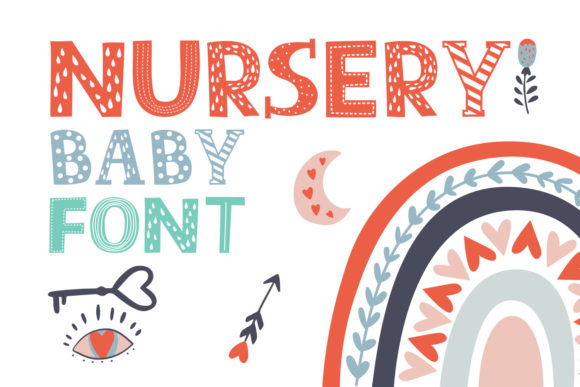
Introducing Nursery Baby Font, the perfect font for kids that will add a touch of whimsy and charm to all your creative projects! Created by OWPictures, this lovely display font is sure to capture the hearts of both children and adults alike.
With its cheerful and playful look, Nursery Baby Font brings a sense of joy and excitement to any design. Whether you're crafting invitations for a baby shower, designing a catchy logo for a children's brand, or creating fun and colorful posters, this font will instantly grab attention and leave a lasting impression.
What sets Nursery Baby Font apart is its incredible versatility. It effortlessly adapts to various styles and themes, making it suitable for a wide range of projects. From cute and adorable to bold and vibrant, this font can do it all!
Imagine the smiles on children's faces as they see their names beautifully written in Nursery Baby Font on personalized birthday cards or storybooks. It adds that extra touch of magic and wonder, making every moment special and memorable.
Not only does Nursery Baby Font bring a sense of delight, but it also offers endless possibilities for customization. With its wide range of characters and glyphs, you can easily create unique and eye-catching designs. Let your imagination run wild and explore the countless ways to incorporate this font into your projects.
But Nursery Baby Font isn't just for kids—it's also a fantastic choice for businesses targeting a youthful demographic. Whether you're designing packaging for children's products, creating engaging social media graphics, or crafting captivating advertisements, this font will instantly captivate your audience.
Experience the magic of Nursery Baby Font and watch as your designs come to life with its enchanting and captivating style. Get ready to wow your audience and stand out from the crowd. Don't miss out on this incredible opportunity to add a touch of whimsy and charm to your creations.